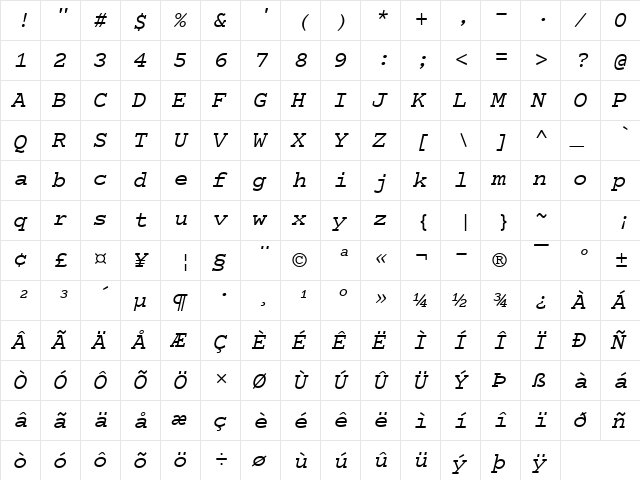
Cumberland Italic Font Preview
Cumberland Italic
Cumberland Italic Font Details
| Foundry | Agfa Monotype Corporation |
| Designer | Agfa Monotype Drawing Office |
Design Context for Cumberland Typeface
Cumberland takes a measured approach to typography — its balanced proportions and neutral character make it a reliable workhorse for both digital and print work. Its italic angle brings a sense of urgency and motion to the letterforms.
Pro Tip: Use Cumberland for emphasis, pull quotes, and subheadings where its slanted energy can add rhythm to the layout.